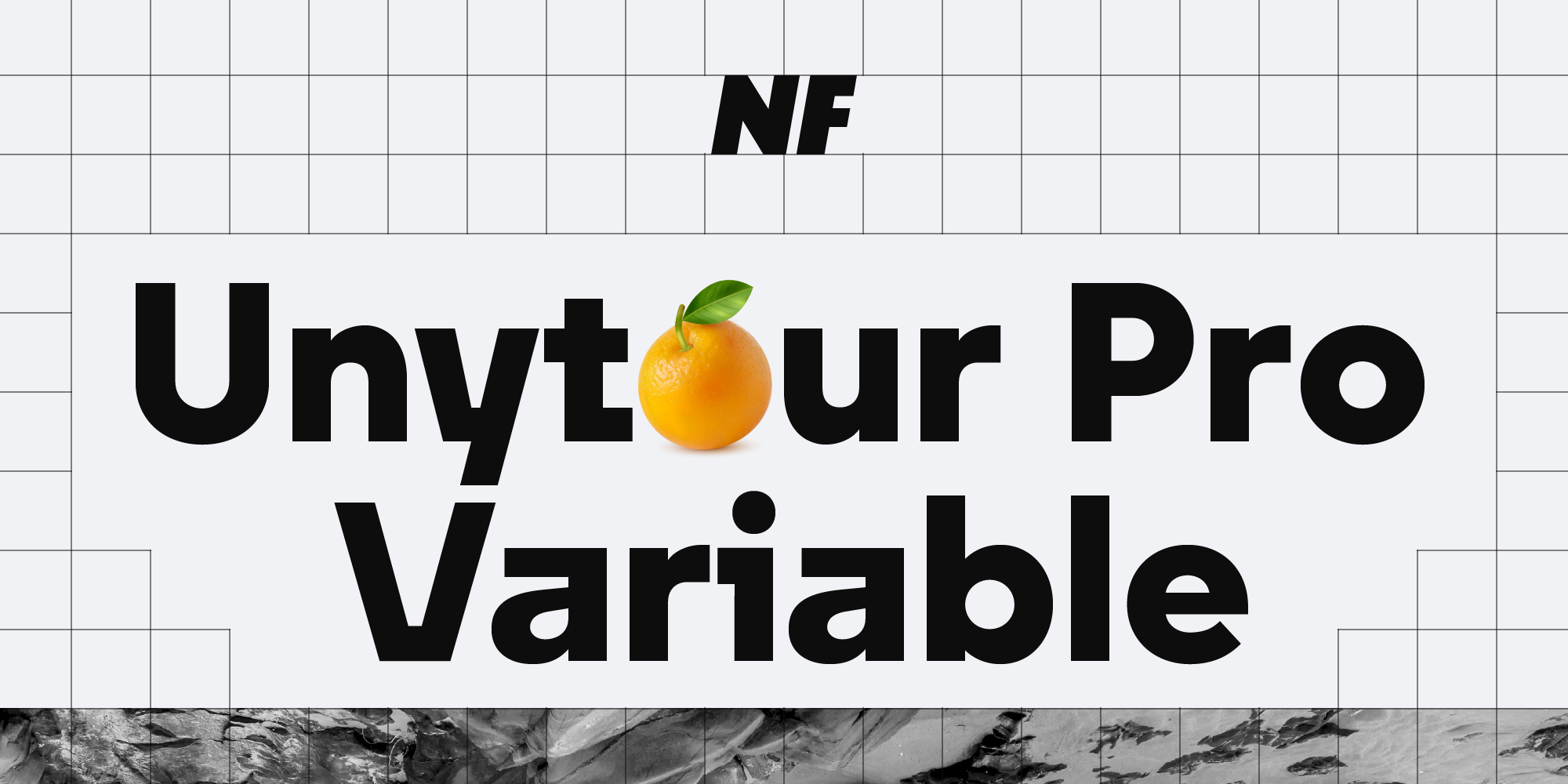
Unytour Pro Variable Font showcases exceptional versatility across cutting-edge design applications including responsive web design, dynamic app interfaces, interactive digital experiences, adaptive branding systems, scalable logo designs, progressive web applications, modern editorial layouts, variable advertising campaigns, flexible packaging solutions, multi-platform marketing materials, animation typography, and future-forward corporate identity systems. This innovative typeface leverages advanced variable font technology to deliver seamless performance across both digital and print environments, making it perfect for designers who demand ultimate flexibility and precision in their typographic solutions.
What makes Unytour Pro Variable Font Free Download truly exciting is its revolutionary variable font technology that allows infinite customization between weight, width, and optical size axes with smooth, real-time adjustments. The font features meticulously engineered letterforms that maintain optimal readability and aesthetic appeal across all variable instances, from ultra-light to extra-bold weights and condensed to extended widths. Its advanced OpenType features and dynamic scaling capabilities enable designers to fine-tune typography with unprecedented precision, creating unique typographic expressions that adapt perfectly to any design context while maintaining consistent brand identity and visual hierarchy.
The Unytour Pro Variable Font family encompasses comprehensive variable axes including weight, width, optical size, and potentially custom parameters, offering virtually unlimited style variations within a single font file. Each axis maintains perfect interpolation and design integrity while providing seamless transitions between extremes. The extensive character set supports multiple languages and includes advanced OpenType features such as contextual alternates, stylistic sets, ligatures, and numerals, ensuring designers have complete creative freedom to develop sophisticated typographic systems that respond dynamically to different design requirements and technical specifications.
Whether you're developing next-generation digital products, creating adaptive brand systems, or designing cutting-edge interactive experiences, Unytour Pro Variable Font Free Download provides the technological foundation necessary for producing innovative and highly responsive designs. Its variable font capabilities and professional excellence make it an essential tool for forward-thinking designers, offering unlimited creative possibilities while maintaining the highest standards of performance, efficiency, and visual sophistication in today's rapidly evolving digital design landscape.